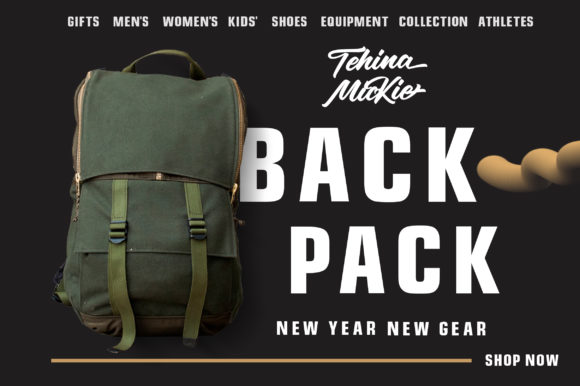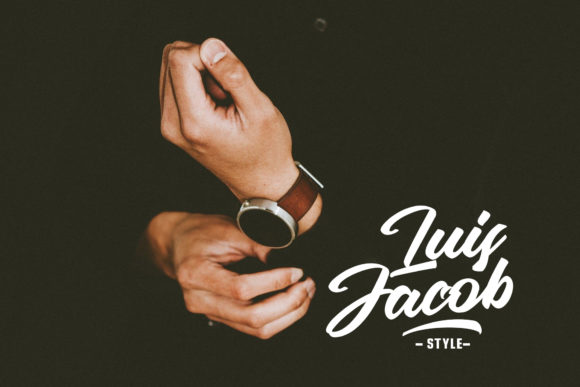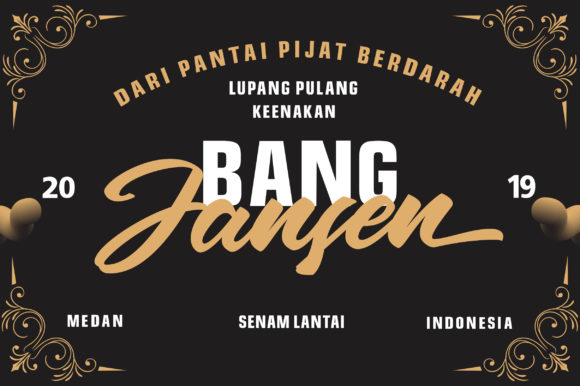
Introduction to Maye Telisik Duo Font
Imagine yourself browsing through a trendy vintage store, surrounded by eclectic clothing and accessories that exude a unique blend of past and present. The font on a vintage-style label catches your eye, and you can’t help but be drawn to its elegant, handwritten charm. This moment of design inspiration is exactly what the Maye Telisik Duo Font is all about – a perfect blend of modern and vintage styles that can elevate any creative project.
As a designer, you’re always on the lookout for high-quality design resources that can help you create stunning visuals. The Maye Telisik Duo Font is a valuable addition to any design library, offering a unique combination of a modern sans and a vintage script version that can be used together to create eye-catching designs. With a transparent background, you can easily combine this font with your favorite images or graphics to create stunning visual effects.
Key Features of Maye Telisik Duo Font
- High-quality design resource for creative projects, perfect for graphic designers, artists, and digital illustrators.
- Comes in two font styles: Maye Telisik Duo Font Regular and Maye Telisik Duo Font Italic, ideal for creating contrast and visual interest.
- Features a transparent background, allowing for seamless integration with any design or image.
- Unique characteristics: elegant, modern, and minimalist design, making it perfect for creating a professional and sophisticated look.
Honest Review: Maye Telisik Duo Font
I recently had the opportunity to work with the Maye Telisik Duo Font, and I must say it’s been a game-changer for my design projects. As a designer, I’m always on the lookout for high-quality fonts that can elevate my creative projects, and this font definitely delivers.
- ✨ High-quality design: The Maye Telisik Duo Font is meticulously crafted, with a focus on detail that’s evident in every letterform.
- ✨ Versatile: This font is perfect for a wide range of design projects, from logos to typography-based artworks.
While the Maye Telisik Duo Font is an excellent resource, I did encounter a few limitations during my review.
- ⚠️ Limited character set: The font only includes a limited character set, which may not be suitable for designs that require a wide range of languages or special characters.
Maye Telisik Duo Font can be used in a variety of creative projects, including graphics, logos, and typography. It’s a great choice for designers who want to add a touch of elegance and sophistication to their work.
Maye Telisik Duo Font is commonly used in:
- Branding and logo design
- Graphics and illustrations
- Typography and word art